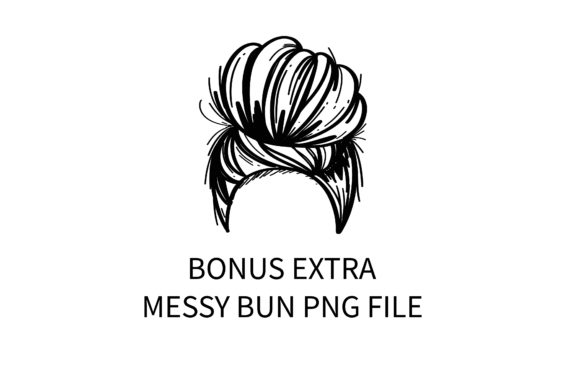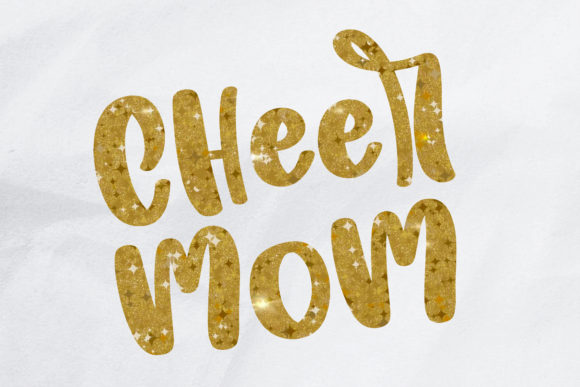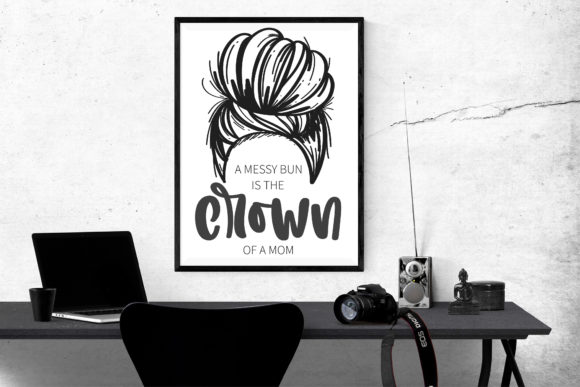
Introduction to Crown of a Mom Font
As a designer, there’s nothing quite like the thrill of discovering a new font that sparks creativity and sets your imagination ablaze. For me, that moment came when I stumbled upon the stunning Crown of a Mom Font. Its sweet and flowing handwritten style had me hooked from the very first glance, and I knew I had to dive in and explore its possibilities.
With its incredibly versatile design, the Crown of a Mom Font is a valuable resource for any designer looking to add a touch of elegance and sophistication to their next creative project. Whether you’re crafting gorgeous wedding invitations, beautiful stationery art, or eye-catching social media posts, this font is sure to shine. And the best part? It’s available for free download, making it a high-quality design resource that’s within reach of even the most budget-conscious designers.
One of the standout features of the Crown of a Mom Font is its transparent background, which allows you to easily customize it to fit your design needs. Whether you’re working on a complex project or a simple social media post, this font is sure to bring a touch of whimsy and personality to your work.
Key Features of Crown of a Mom Font
- Unique Design: This font features a beautiful, hand-drawn design that makes it perfect for creative projects and personal use.
Honest Review: Crown of a Mom Font
I recently stumbled upon the Crown of a Mom Font and was excited to dive in and explore its features. As a designer, I’m always on the lookout for high-quality fonts that can elevate my creative projects.
What works well: ✨ The Crown of a Mom Font is a beautiful, cursive script font that’s perfect for any project that needs a touch of elegance. It’s a free download, which is a major plus in my book. The font also has a transparent background, making it easy to use on any design surface.
What I didn’t love: ⚠️ One of the limitations of the Crown of a Mom Font is that it’s not suitable for small text sizes. The letters can become a bit blurry and difficult to read, which may be a problem for some designers.
Overall impression: I was impressed with the Crown of a Mom Font’s design and versatility. It’s a great resource for designers who need a high-quality, elegant font for their projects. Just be mindful of the font size when using it.
The Crown of a Mom Font is commonly used in designs related to motherhood, parenting, and family. It’s a great font to use in projects such as mother’s day cards, baby shower invitations, and family reunion graphics.